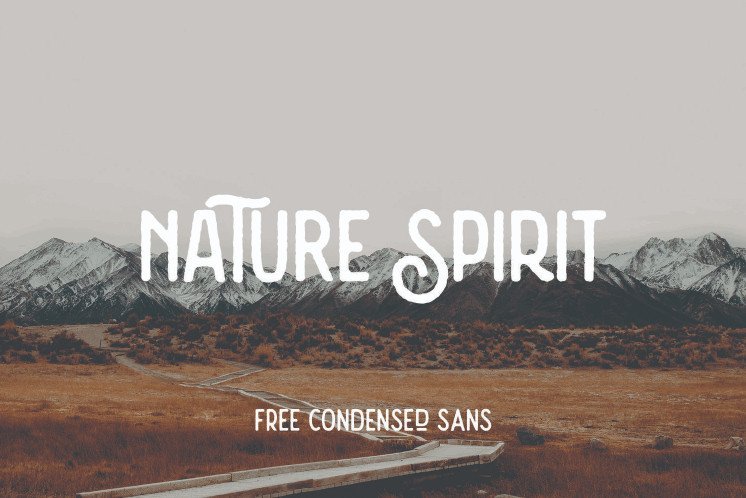
Nature Spirit Vintage Font
A new vintage font typeface. Made carefully to create the perfect texture and suitable for each of your projects. Introducing Nature Spirit Font. Nature Spirit Vintage Font is a unique vintage style font it features 2 versions – Clean & Rough. This font has tons of alternate characters for creating custom type. This is perfect for vintage branding, logo & label design, apparel, lockups and much more!